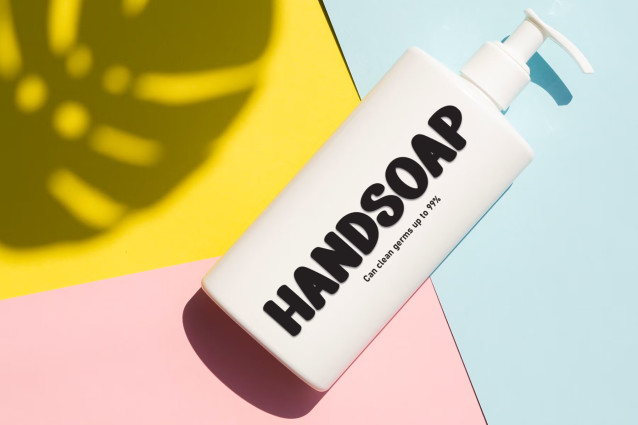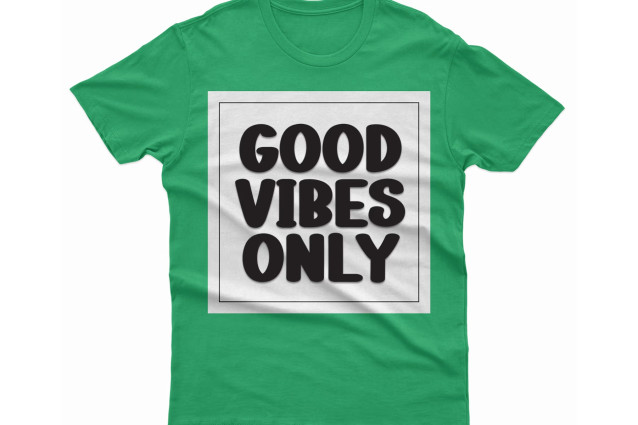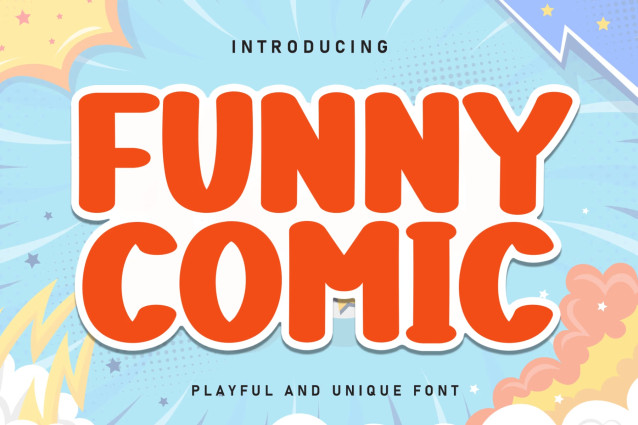
Funny Comic Font
Funny Comic Font – special creative products for you, our products will give you an extraordinary experience. The latest style letters are perfect for wall displays, wedding invitations, social media post logos, advertisements, product packaging, product designs, labels, photography, watermarks, invitations, stationery, and any project that requires taste handwriting.